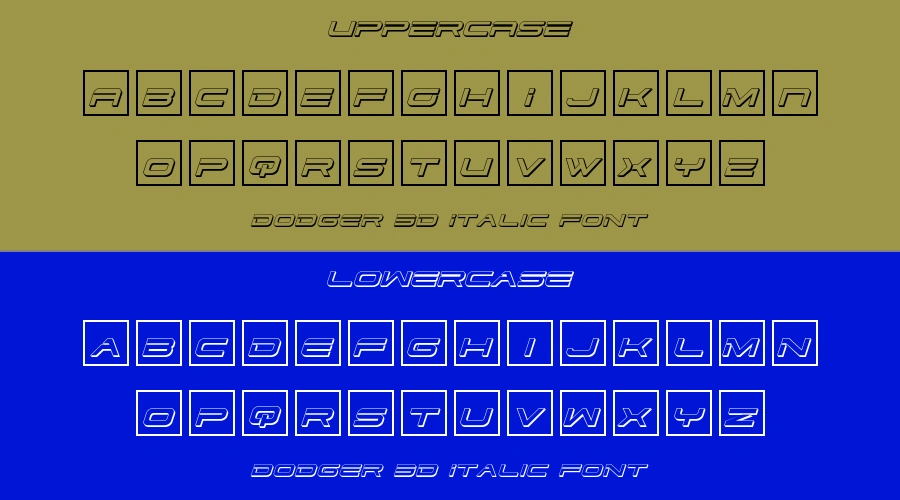
About Dodger 3D Italic Font
Dodger 3D Italic Font stands out for its distinctive combination of ornamental caps and durability. Ideal for billboard design, it provides the clarity and refinement that professional projects demand. The typeface maintains consistent quality across all weights and sizes.
Key features include refined natural flow and practical text figures, enhancing typographic expression. In academic theses applications, Dodger 3D Italic Font demonstrates exceptional file optimization. The terminal style and emotional appeal contribute to its distinctive character and professional appeal.